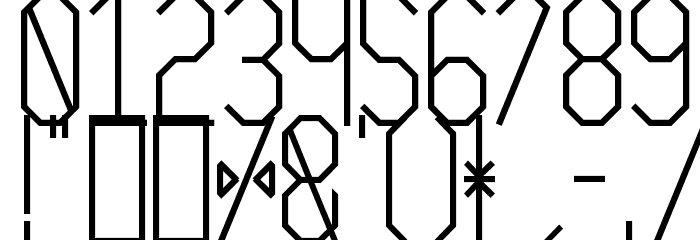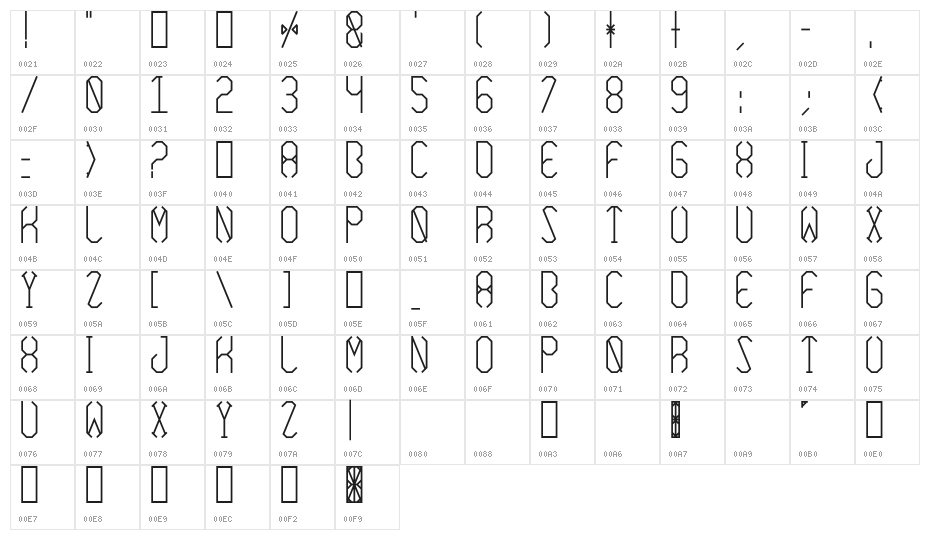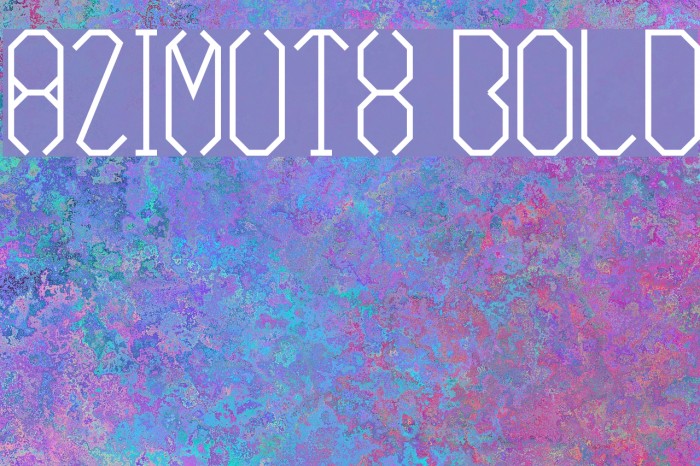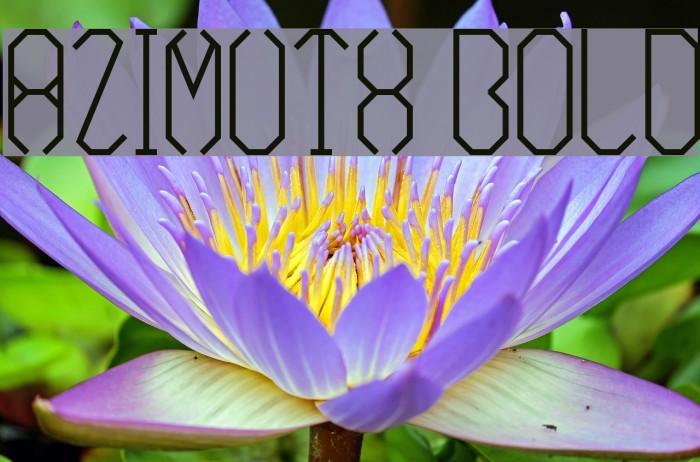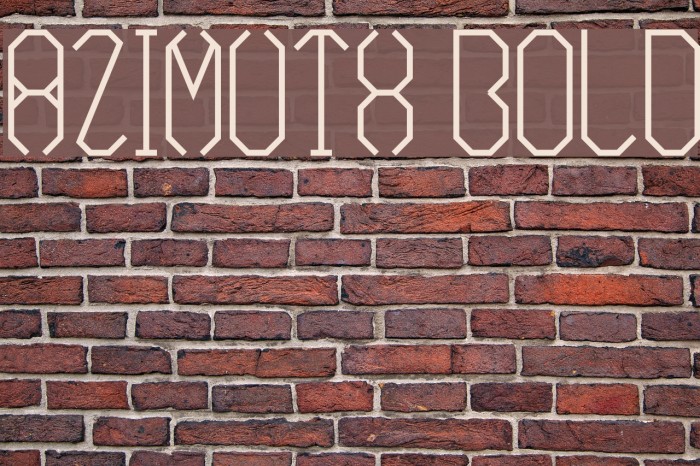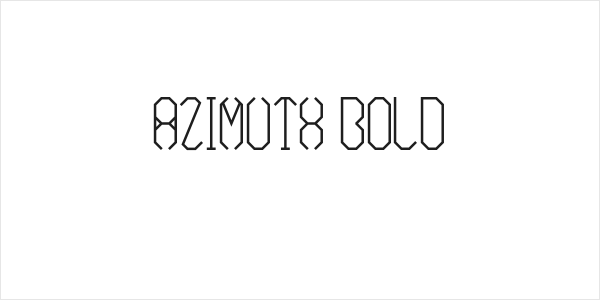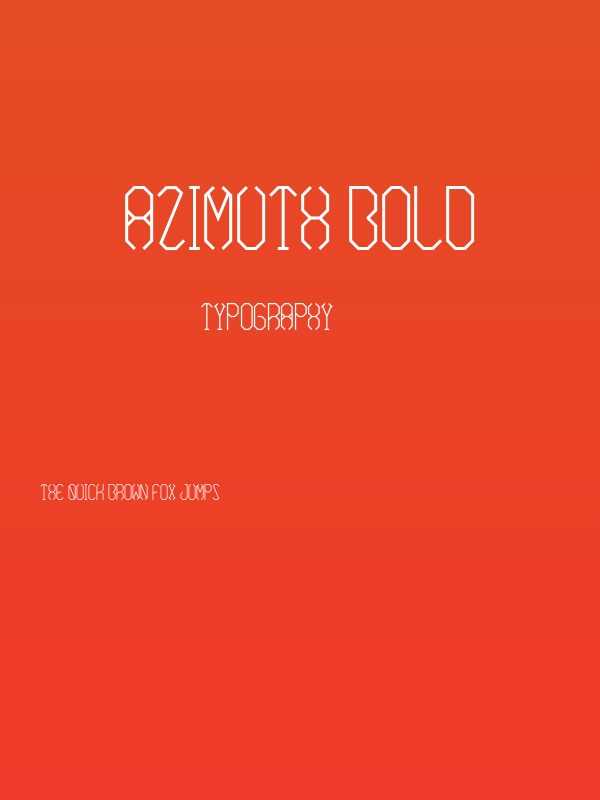
Azimuth Bold Font
Azimuth Bold Description
This font features a geometric and angular design, characterized by its bold and striking appearance. The letters are constructed with straight lines and sharp angles, giving it a futuristic and technical feel. The uppercase and lowercase characters maintain a consistent style, with a uniform stroke width that enhances its boldness. The numerals and special characters follow the same design principles, ensuring a cohesive look across all glyphs. This font's unique structure makes it stand out, suitable for projects that require a modern and edgy aesthetic.
| Proposed Projects | Ideal for technology branding, sci-fi themed designs, video game titles, and modern posters. |